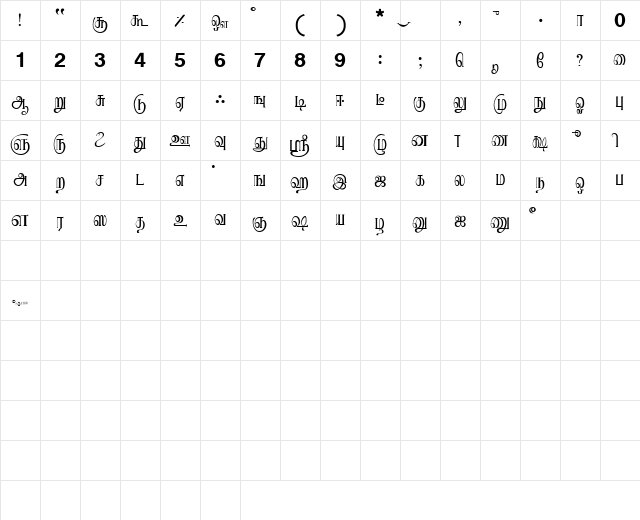
KS_Avvaiyar Normal
Design Context for KS_Avvaiyar Typeface
KS_Avvaiyar is a composed and adaptable typeface that performs quietly and consistently across a wide range of design contexts.
Pro Tip: Pair KS_Avvaiyar with a font of contrasting weight or personality to build a more expressive typographic hierarchy.